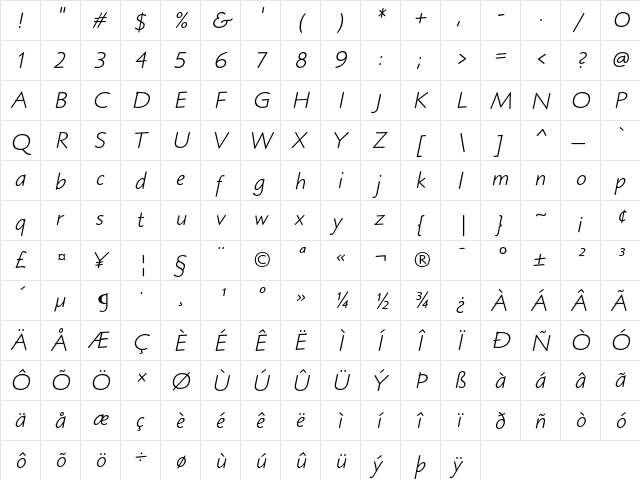
Blueprint MT Italic
Design Context for Blueprint MT Typeface
Blueprint MT takes a measured approach to typography — its balanced proportions and neutral character make it a reliable workhorse for both digital and print work. The slanted form adds forward momentum and visual energy.
Pro Tip: Try Blueprint MT for annotation and caption copy alongside an upright companion — the contrast in angle creates a dynamic but ordered typographic system.